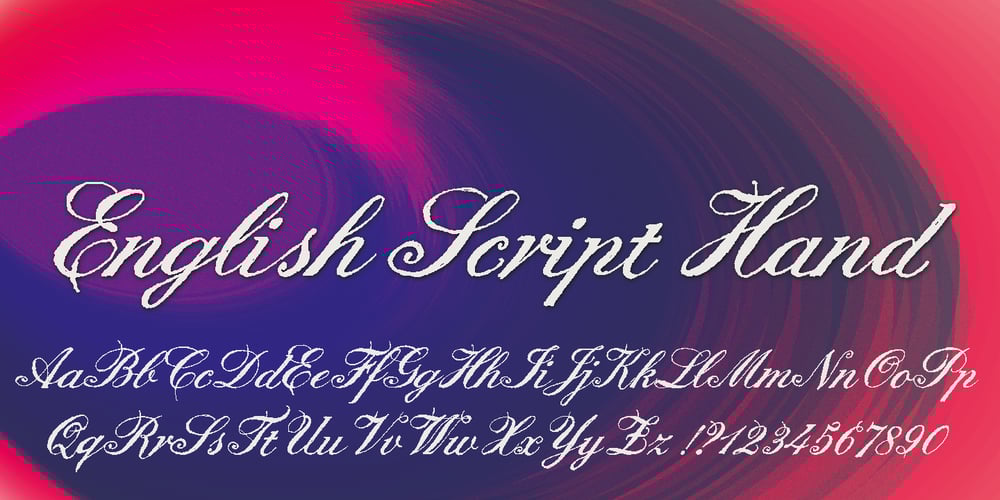
English Script Hand
English Script Hand font
English Script Hand Font Family was designed by Gert Wiescher and published by Autographis. English Script Hand contains 1 styles and family package options. This is the classic English Script. Completely drawn by hand with a classic pen and then scanned and worked over just enough to keep that handmade touch. I didn’t want this to look perfect, there are enough versions of this font that are way too slick.